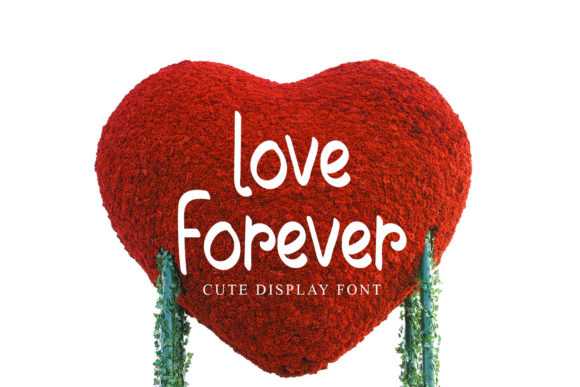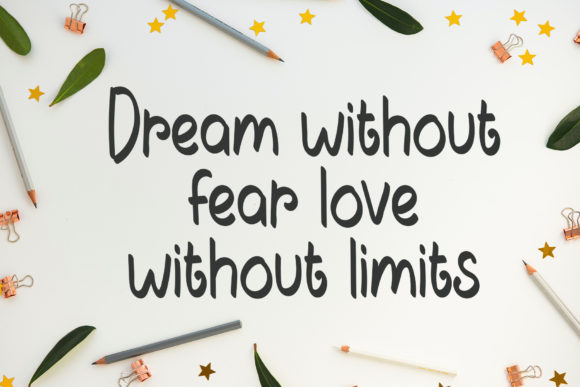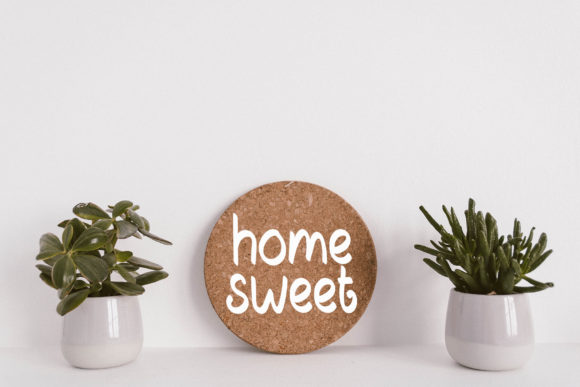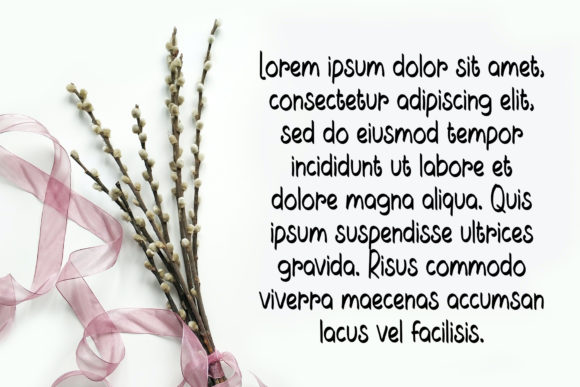
The Magic of Disney Channel Font
Have you ever found yourself doodling in the margins of a notebook, trying to capture the whimsy of a favorite childhood memory? For many creatives, this is a familiar moment of inspiration – and it’s exactly the kind of spark that the Disney Channel Font was designed to ignite.
This delightful handwritten font is more than just a pretty face; it’s a tool for adding a touch of magic to your designs. Crafted specifically for those seeking a beautiful and refreshing look, the Disney Channel Font is perfect for anyone looking to inject a little Disney charm into their work.
With its playful, casual vibe, the Disney Channel Font is a valuable asset for designers of all levels – from hobbyists to pros – who want to bring a touch of whimsy and wonder to their projects.
Disney Channel Font Key Features
- Font Family: The Disney Channel Font is a custom-designed font, also known as “Disney Channel Font” or “DC Font”, which is a sans-serif typeface.
- Unique Characteristics: The Disney Channel Font features a distinctive rounded sans-serif design with a friendly and approachable feel, often associated with the Disney brand.
Disney Channel Font Review
The Disney Channel Font is a fun, playful font that captures the essence of the beloved brand. It’s a great choice for designers looking to create a whimsical and youthful vibe in their projects.
- ✨ The font’s bold and cheerful style is perfect for creating eye-catching headlines and titles.
- ✨ The font’s rounded edges and smooth curves give it a friendly and approachable feel.
- ✨ The font is highly customizable, making it easy to adjust the size, color, and style to suit your needs.
- ⚠️ The font may not be suitable for formal or professional projects, as it can come across as too playful or childish.
- ⚠️ The font may not be as legible at smaller font sizes, which can make it difficult to read in certain contexts.
Overall, the Disney Channel Font is a fun and versatile font that’s perfect for designers looking to add a touch of whimsy to their projects. While it may have some limitations, it’s a great choice for creating engaging and attention-grabbing designs.
The Disney Channel Font is perfect for creating a nostalgic and playful vibe in your designs. Use it for:
- Family-friendly branding and marketing materials
- Disney-themed art and crafts